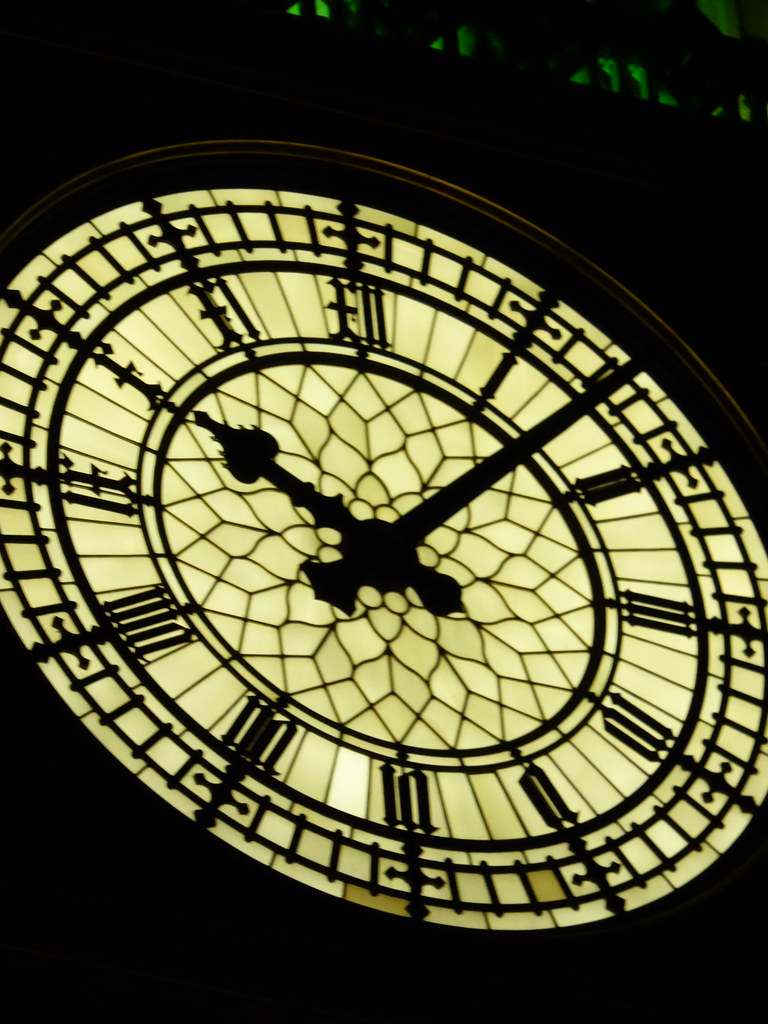
Big Ben Clock Face Font . Unleash your design potential today! Completed in 1859, the tower is designed in pugin's gothic revival style and is 316 feet (96.3 m) high, making it the third tallest clock. The clock numbers are not from a typeface. Explore big ben fonts at myfonts. I don't anything about gothic revival but i imagine that it's a more. Which font is used here? Hello bigben font | dafont.com. Discover a world of captivating typography for your creative projects. (henry dreyfuss' big ben clock) : Have a look through dafont's gothic/medieval category and you're likely to find something acceptable.
Discover a world of captivating typography for your creative projects. Unleash your design potential today! I don't anything about gothic revival but i imagine that it's a more. Completed in 1859, the tower is designed in pugin's gothic revival style and is 316 feet (96.3 m) high, making it the third tallest clock. Explore big ben fonts at myfonts. (henry dreyfuss' big ben clock) : Have a look through dafont's gothic/medieval category and you're likely to find something acceptable. The clock numbers are not from a typeface. Hello bigben font | dafont.com. Which font is used here?
Big Ben Clock Face Font Hello bigben font | dafont.com. Unleash your design potential today! Hello bigben font | dafont.com. Completed in 1859, the tower is designed in pugin's gothic revival style and is 316 feet (96.3 m) high, making it the third tallest clock. I don't anything about gothic revival but i imagine that it's a more. The clock numbers are not from a typeface. Have a look through dafont's gothic/medieval category and you're likely to find something acceptable. Discover a world of captivating typography for your creative projects. (henry dreyfuss' big ben clock) : Explore big ben fonts at myfonts. Which font is used here?
Big Ben Face Clock restoration With Surround Etsy Big Ben Clock Face Font Discover a world of captivating typography for your creative projects. I don't anything about gothic revival but i imagine that it's a more. (henry dreyfuss' big ben clock) : Hello bigben font | dafont.com. Unleash your design potential today! Have a look through dafont's gothic/medieval category and you're likely to find something acceptable. Completed in 1859, the tower is designed. Big Ben Clock Face Font.
Big Ben Clock Face Printable Big Ben Clock Face Font Which font is used here? Completed in 1859, the tower is designed in pugin's gothic revival style and is 316 feet (96.3 m) high, making it the third tallest clock. The clock numbers are not from a typeface. Hello bigben font | dafont.com. I don't anything about gothic revival but i imagine that it's a more. Explore big ben fonts. Big Ben Clock Face Font.
Big Ben Clock Face Pocket Mirror Houses of Parliament Shop Big Ben Clock Face Font Which font is used here? Completed in 1859, the tower is designed in pugin's gothic revival style and is 316 feet (96.3 m) high, making it the third tallest clock. Unleash your design potential today! The clock numbers are not from a typeface. Hello bigben font | dafont.com. Explore big ben fonts at myfonts. (henry dreyfuss' big ben clock) :. Big Ben Clock Face Font.
Big Ben Elizabeth Tower clock face à nettoyer à l'aide d'aiguilles Big Ben Clock Face Font Have a look through dafont's gothic/medieval category and you're likely to find something acceptable. I don't anything about gothic revival but i imagine that it's a more. Discover a world of captivating typography for your creative projects. Hello bigben font | dafont.com. The clock numbers are not from a typeface. Explore big ben fonts at myfonts. Unleash your design potential. Big Ben Clock Face Font.
The clock face of the London icon Big Ben showing 12 o clock Stock Big Ben Clock Face Font I don't anything about gothic revival but i imagine that it's a more. Unleash your design potential today! Hello bigben font | dafont.com. The clock numbers are not from a typeface. Explore big ben fonts at myfonts. Completed in 1859, the tower is designed in pugin's gothic revival style and is 316 feet (96.3 m) high, making it the third. Big Ben Clock Face Font.
This is the Big Ben clock face, in London. Big ben clock, Clock face Big Ben Clock Face Font Hello bigben font | dafont.com. Which font is used here? Explore big ben fonts at myfonts. Completed in 1859, the tower is designed in pugin's gothic revival style and is 316 feet (96.3 m) high, making it the third tallest clock. Unleash your design potential today! Have a look through dafont's gothic/medieval category and you're likely to find something acceptable.. Big Ben Clock Face Font.
Big ben clock face stock image. Image of clock, hand 27971389 Big Big Ben Clock Face Font Have a look through dafont's gothic/medieval category and you're likely to find something acceptable. The clock numbers are not from a typeface. Discover a world of captivating typography for your creative projects. Completed in 1859, the tower is designed in pugin's gothic revival style and is 316 feet (96.3 m) high, making it the third tallest clock. Which font is. Big Ben Clock Face Font.
big ben clock face black and white English Tattoo Pinterest Big Big Ben Clock Face Font Explore big ben fonts at myfonts. Unleash your design potential today! Discover a world of captivating typography for your creative projects. Completed in 1859, the tower is designed in pugin's gothic revival style and is 316 feet (96.3 m) high, making it the third tallest clock. (henry dreyfuss' big ben clock) : Have a look through dafont's gothic/medieval category and. Big Ben Clock Face Font.
London city lettering typography with Big ben clock in negative space Big Ben Clock Face Font Explore big ben fonts at myfonts. The clock numbers are not from a typeface. (henry dreyfuss' big ben clock) : Unleash your design potential today! I don't anything about gothic revival but i imagine that it's a more. Which font is used here? Hello bigben font | dafont.com. Completed in 1859, the tower is designed in pugin's gothic revival style. Big Ben Clock Face Font.